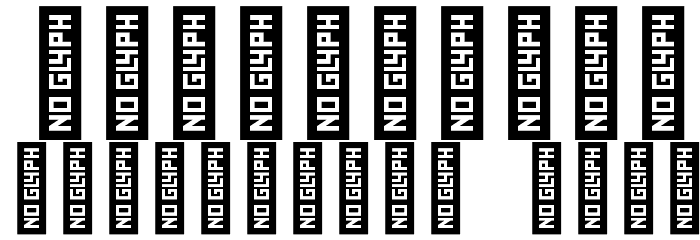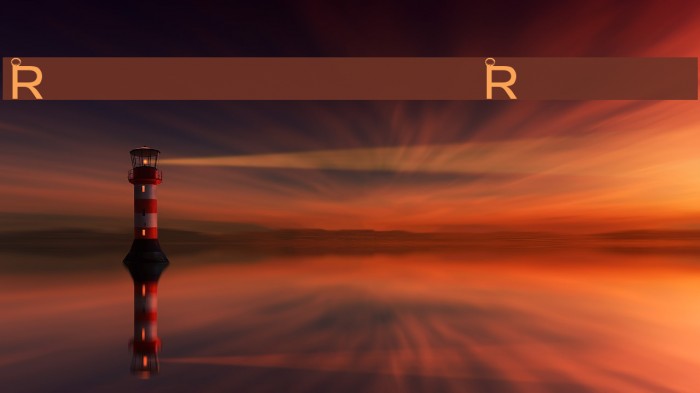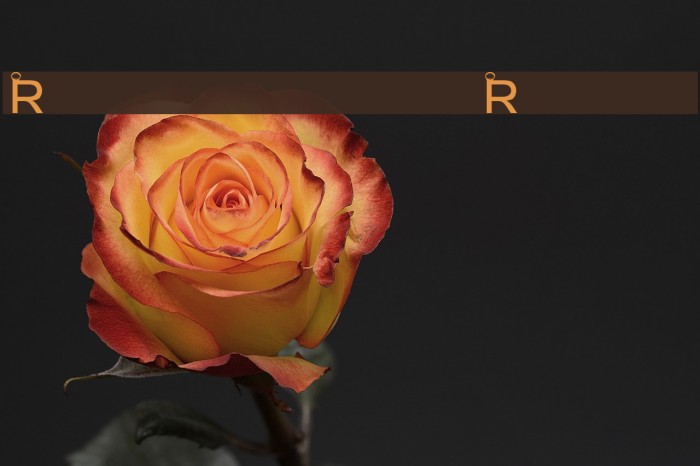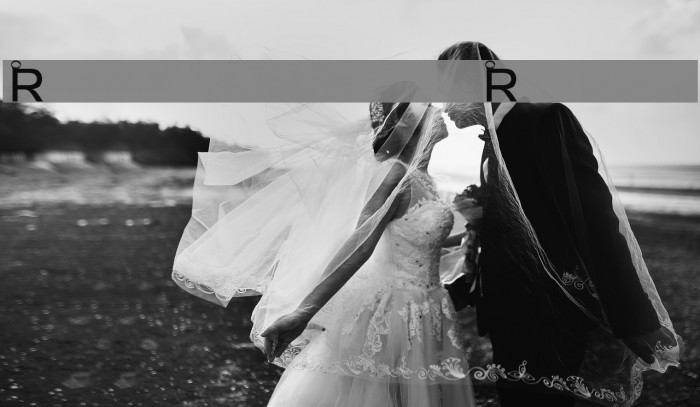
Rotlichtlampe-Regular Font
Rotlichtlampe-Regular Description
This font features a unique design with a modern twist, incorporating small circular accents at the top of each letter, giving it a distinct and playful appearance. The uppercase letters are bold and geometric, with clean lines and a consistent stroke width. The absence of lowercase letters and numbers suggests a focus on decorative or headline use. The overall style is contemporary and eye-catching, making it suitable for creative projects that require a touch of whimsy and innovation.
| Proposed Projects | Ideal for creative branding, posters, and headlines where a unique and playful style is desired. |